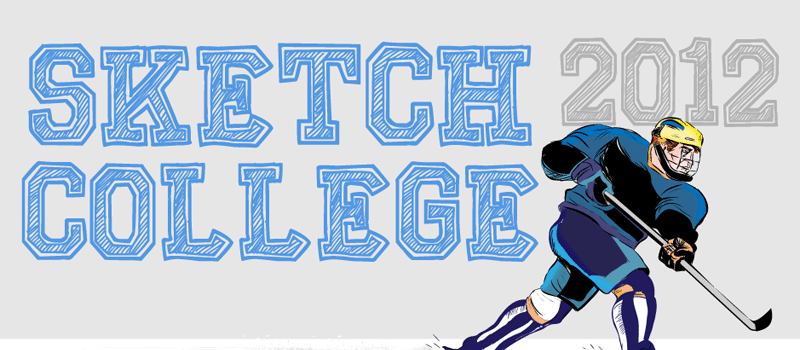
Old school fonts evoke a sense of nostalgia, bringing back the bold, gritty, and timeless aesthetics of vintage sports, retro signage, and classic Americana. Whether you’re designing a varsity logo, a retro poster, or a throwback branding project, these old school fonts carry a unique charm that modern typefaces often can’t replicate.
In this post, we’ll explore some of the best old school fonts that capture the spirit of bygone eras—from collegiate lettering to distressed athletic styles. These fonts aren’t just about aesthetics; they tell a story, making them perfect for projects that demand character and authenticity.
Freshman
A bold, collegiate-style font with a classic varsity feel, perfect for sports designs and school projects.
Jersey Letters
Inspired by athletic jerseys, this blocky, condensed font screams teamwork and competition.
Universal College
A clean, draft-style font with a collegiate vibe, ideal for logos and school spirit designs.
Allstar
Bold and angular, this font captures the energy of sports and vintage signage.
Sports World
A playful yet strong font with a retro sports aesthetic, great for headline fonts.
Staubach
Thick, rounded letters with a friendly athletic vibe, reminiscent of classic team logos.
Bascula
A quirky, hand-drawn style with uneven edges, adding a rough, rebellious charm.
Pulp Fiction
Gritty and retro, this font mimics the raw typography of vintage movie posters.
Athletic Supporter
A dynamic, hand-painted style that embodies the passion of sports culture.
Station 232
A distressed, industrial font with a rugged, old-school Americana feel.
College
The quintessential collegiate font—bold, blocky, and instantly recognizable.
Sketch College (Personal)
A hand-sketched take on classic varsity lettering, full of raw energy.
Colleged (Personal)
A stylized, slightly grungy font that blends academia with streetwise attitude.
Collegiate Heavy Outline
Thick outlines and a heavy presence make this font ideal for impactful sports branding.
Fargo Faro
A quirky, uneven serif font with a nostalgic, typewriter-meets-schoolbook charm.